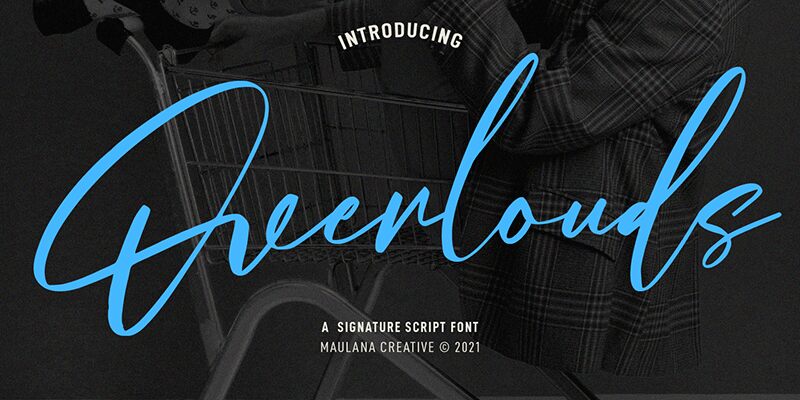
Overlouds
Introducing Overlouds signature font from Maulana Creative. This light and narrow typeface is perfect for creating eye-catching logos, creative invitations, and memorable headlines. Let Overlouds be the voice of your next project!